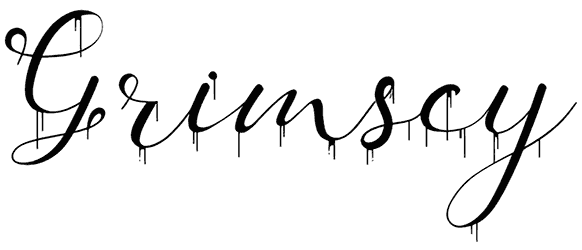
Grimscy Font
Sometimes, for making something amazing, you need to mix up different styles, like combining calligraphy fonts with horror fonts to create a font like Grimscy. This font is a brilliant typography for your content, which makes your artwork stand apart from others.
With a collection of characters that only lack numbers, you have your hands open to create marvelous designs, which give people the creeps with elegance, like in a royal vampire movie.